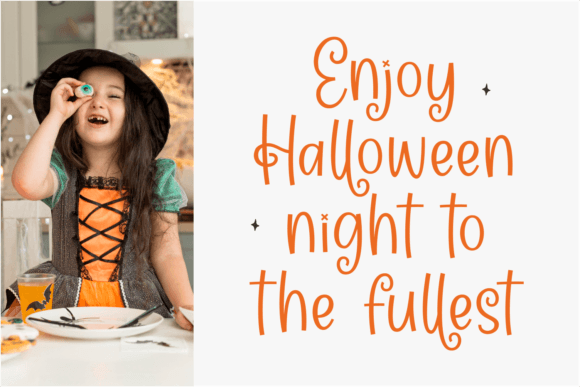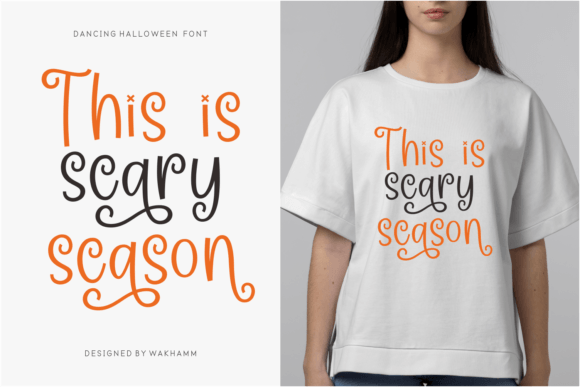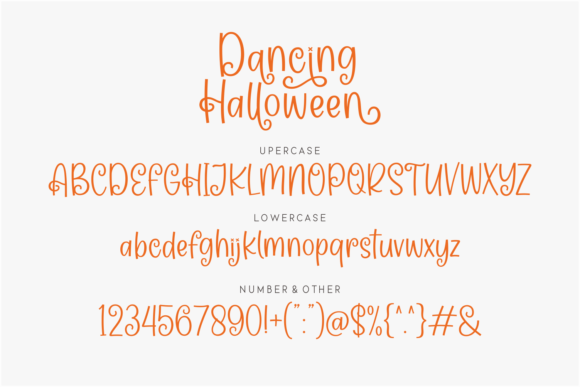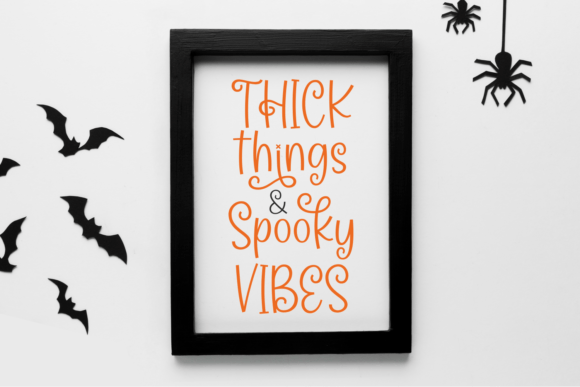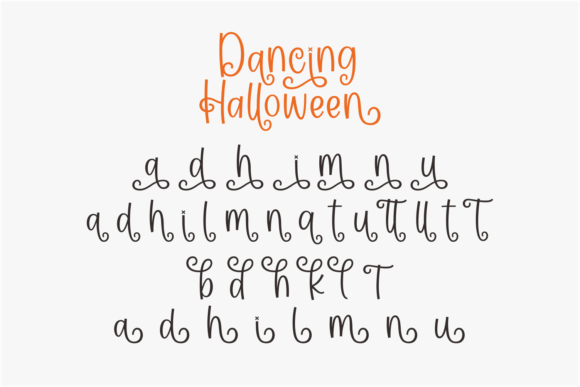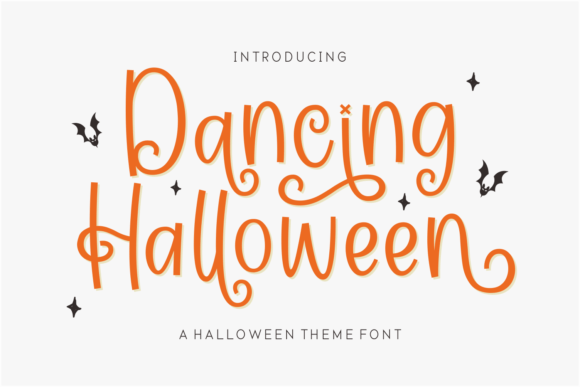
Dancing Halloween Font: Add a Spooky Touch to Your Designs
Are you looking for a unique and festive font to add a spooky touch to your Halloween-themed projects? Look no further than the Dancing Halloween Font! This fun and spooky magic handwritten font is perfect for designers and crafters who want to create eye-catching and whimsical designs that will stand out from the crowd.
What is Dancing Halloween Font?
Dancing Halloween is a fun and spooky magic handwritten font that features playful, wavy letters that look like they are dancing. The font has a unique and festive flair that is perfect for Halloween-themed projects, such as invitations, posters, and social media graphics. The font’s playful and whimsical design makes it ideal for designers and crafters who want to add a touch of spookiness and fun to their designs.
Key Features of Dancing Halloween Font
- Playful and Whimsical Design: The Dancing Halloween Font features playful, wavy letters that look like they are dancing, adding a touch of whimsy and fun to your designs.
- Spooky and Festive Flair: The font’s unique and festive design makes it perfect for Halloween-themed projects, adding a touch of spookiness and festivity to your designs.
- Handwritten Style: The Dancing Halloween Font has a handwritten style that gives it a personal and unique touch, making it perfect for designers and crafters who want to add a personal touch to their designs.
- Easy to Read: Despite its playful and whimsical design, the Dancing Halloween Font is easy to read, making it perfect for use in a variety of designs, from invitations to social media graphics.
Uses for Dancing Halloween Font
The Dancing Halloween Font is perfect for a variety of Halloween-themed projects, including:
- Halloween Invitations: Use the Dancing Halloween Font to create spooky and fun invitations for Halloween parties and events.
- Social Media Graphics: Add a touch of spookiness and fun to your social media graphics with the Dancing Halloween Font.
- Posters and Flyers: Use the Dancing Halloween Font to create eye-catching posters and flyers for Halloween events and promotions.
- Crafting Projects: The Dancing Halloween Font is perfect for use in a variety of crafting projects, such as scrapbooking, card making, and DIY decorations.
Tips for Using Dancing Halloween Font
Here are a few tips for using the Dancing Halloween Font in your designs:
- Use it with Other Halloween-themed Elements: Use the Dancing Halloween Font with other Halloween-themed elements, such as images of pumpkins, ghosts, and bats, to create a cohesive and festive design.
- Experiment with Different Colors: Experiment with different colors to find the perfect combination for your design. The Dancing Halloween Font looks great in bold and bright colors, such as orange, black, and purple.
- Keep it Simple: Don’t be afraid to keep it simple and use the Dancing Halloween Font on its own. The font’s playful and whimsical design makes it perfect for use as a standalone element.
| Font Name | Dancing Halloween Font |
| Author | Wakhamm (7NTypes) |
The Dancing Halloween Font is a fun and spooky magic handwritten font that is perfect for designers and crafters who want to add a touch of whimsy and spookiness to their Halloween-themed projects. With its playful and wavy letters, the font is sure to add a unique and festive flair to your designs. Whether you’re creating invitations, social media graphics, or crafting projects, the Dancing Halloween Font is the perfect choice.